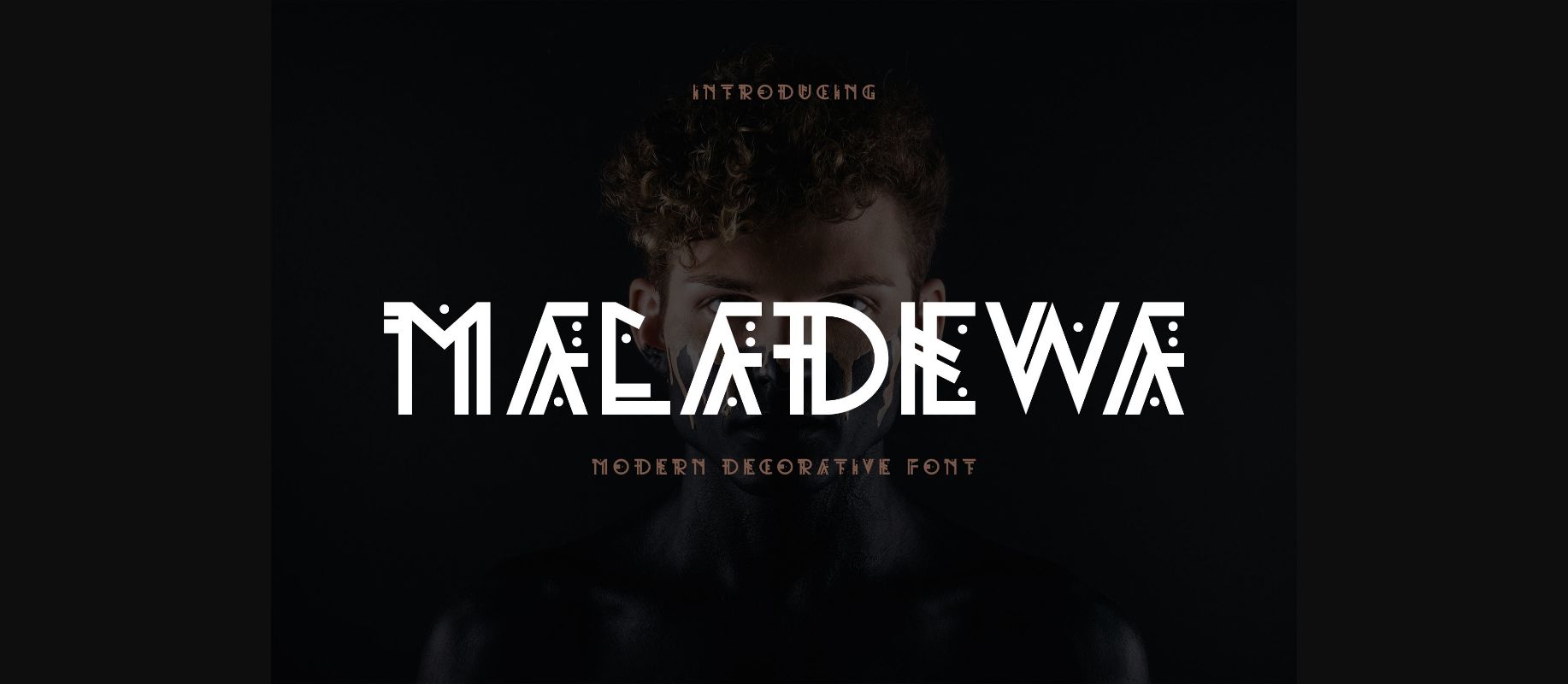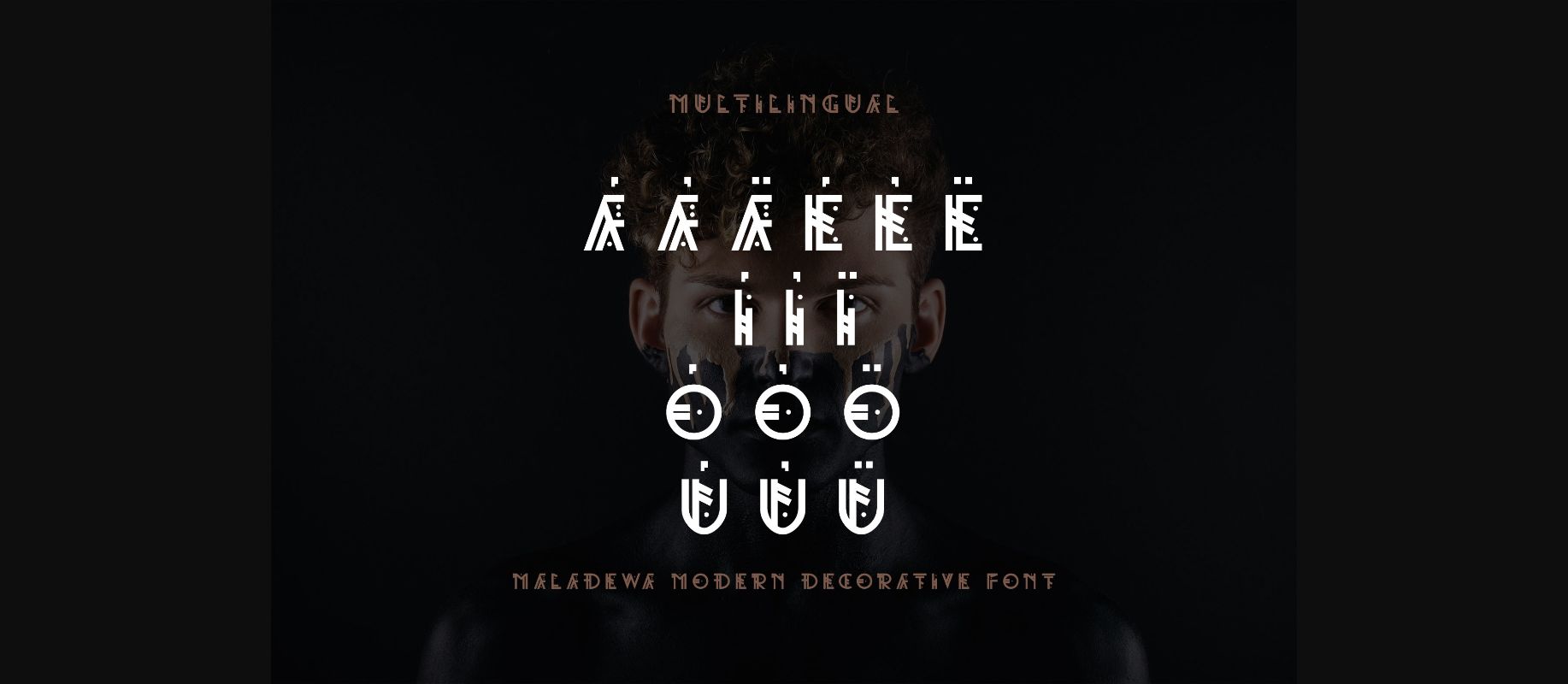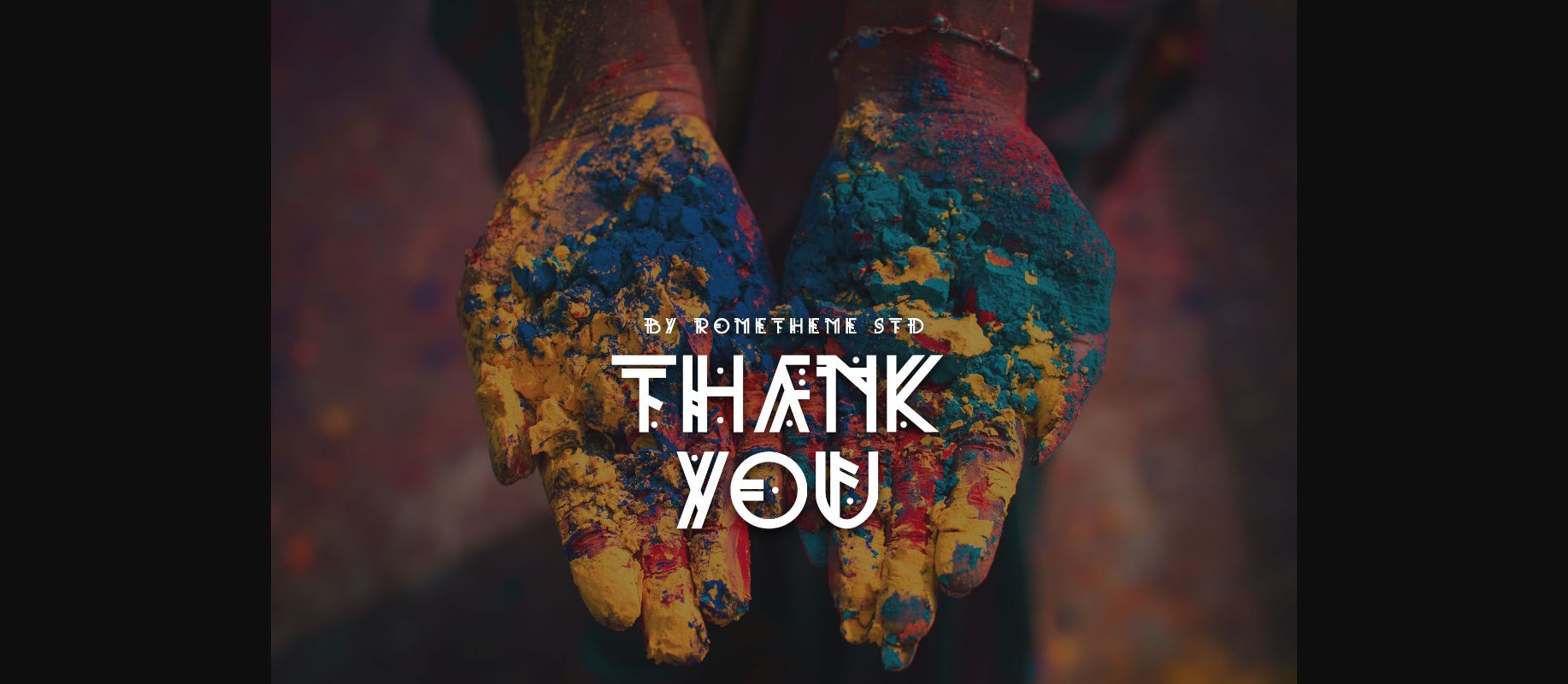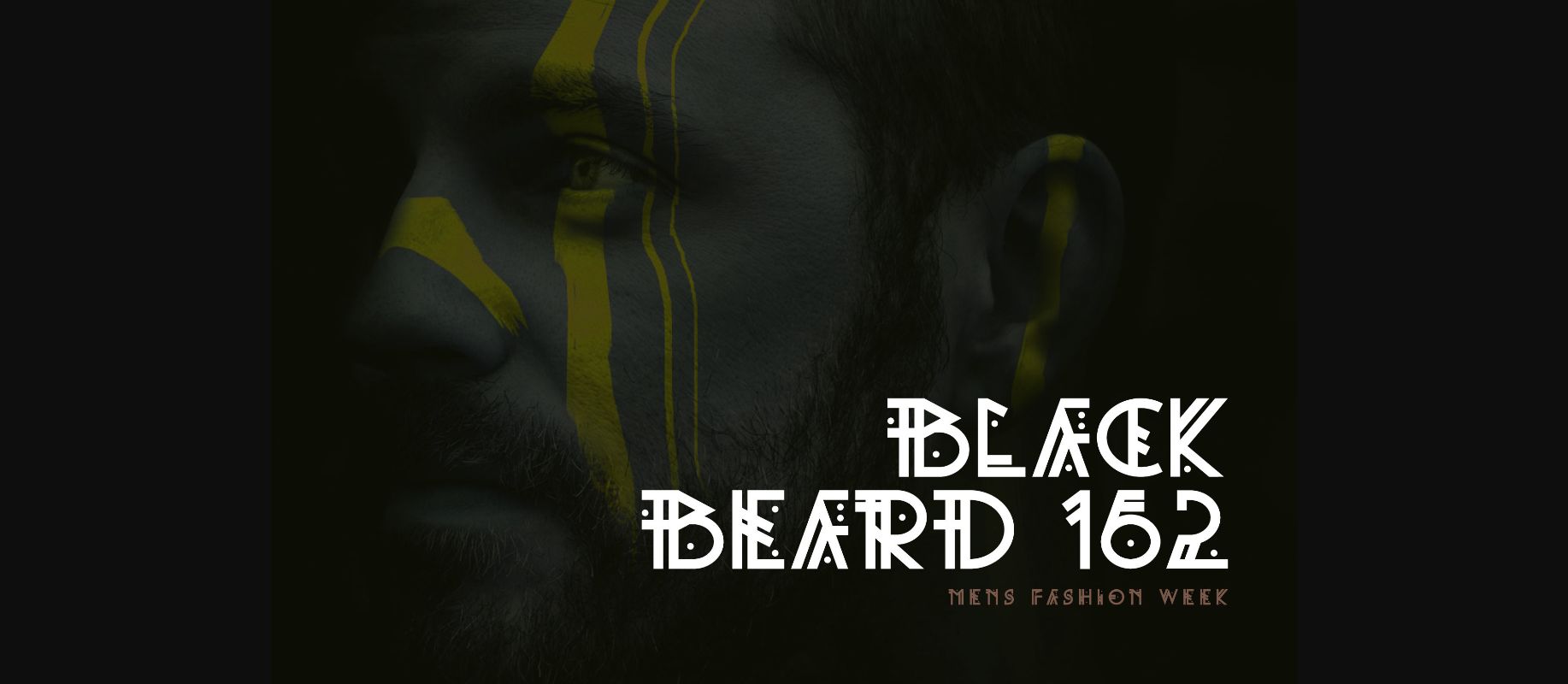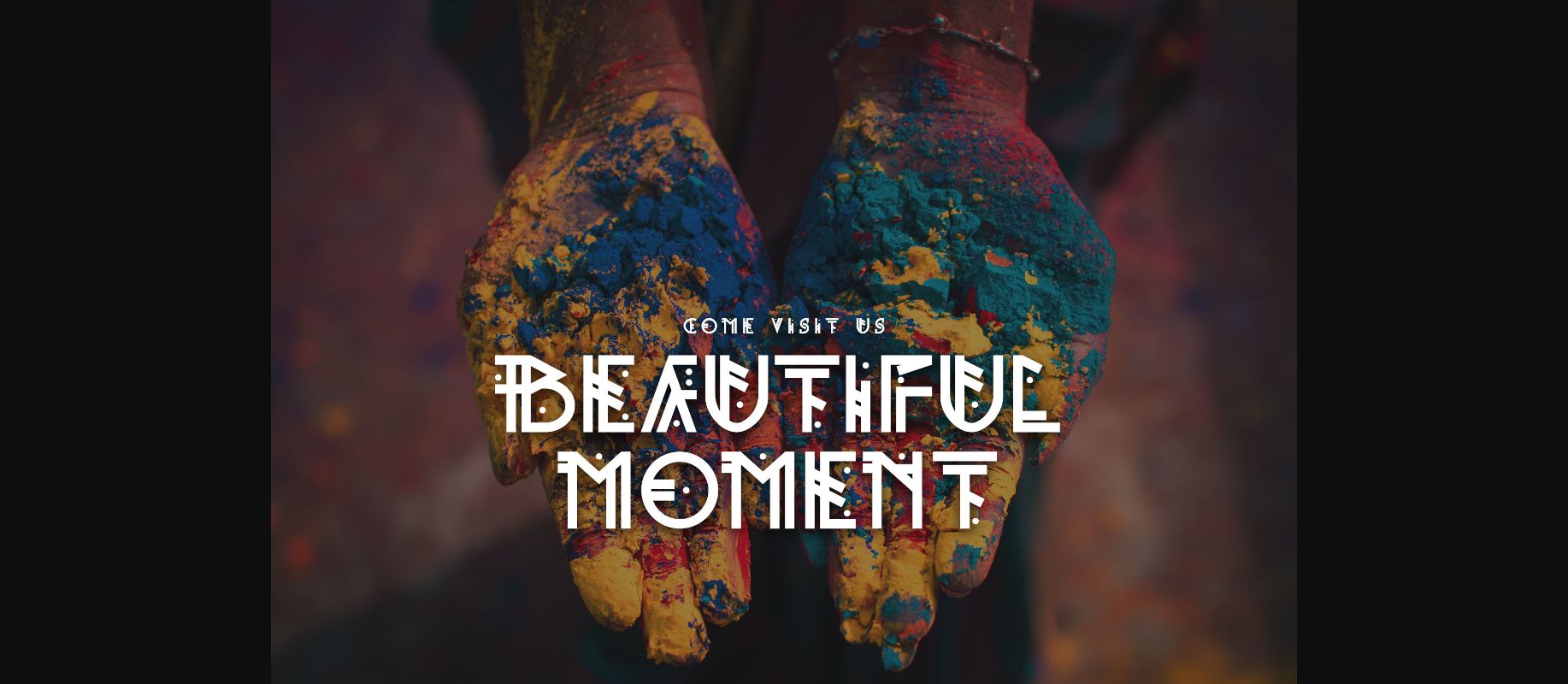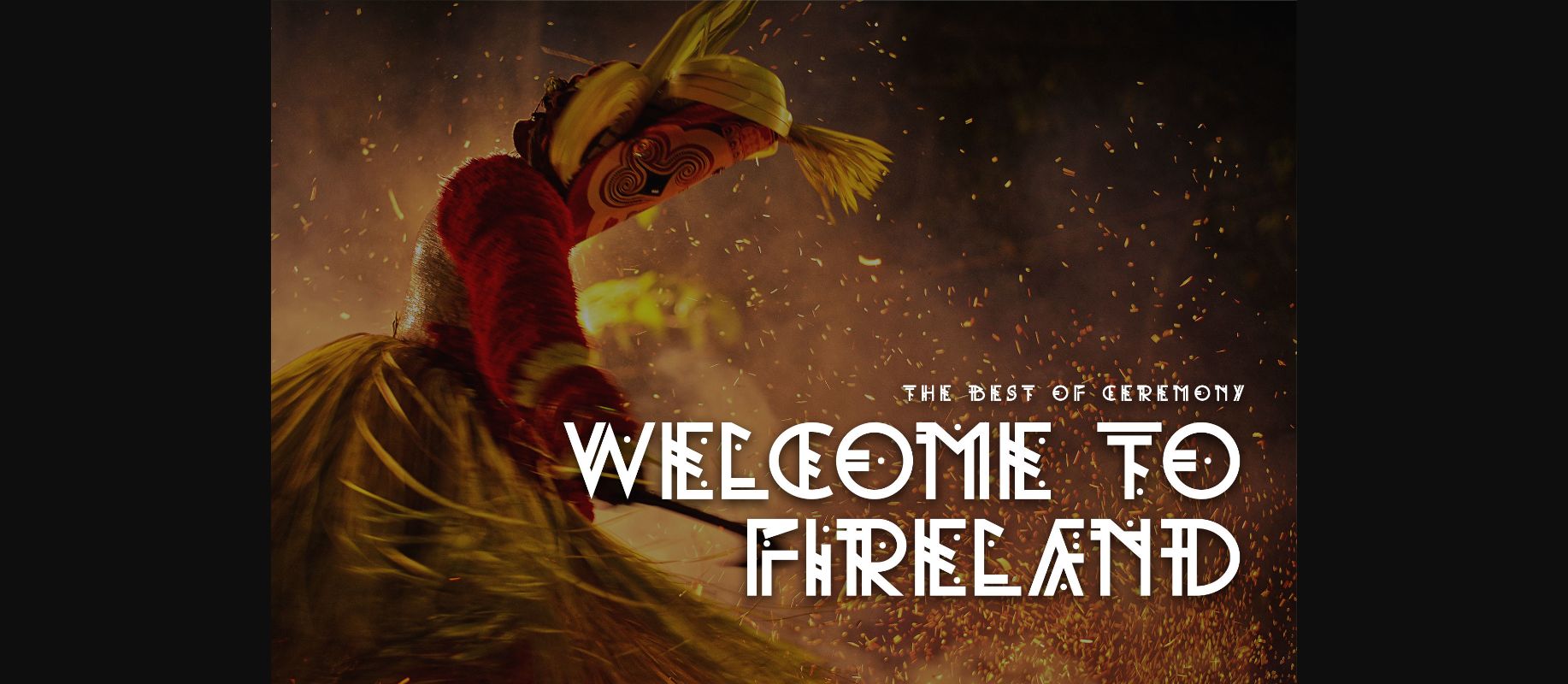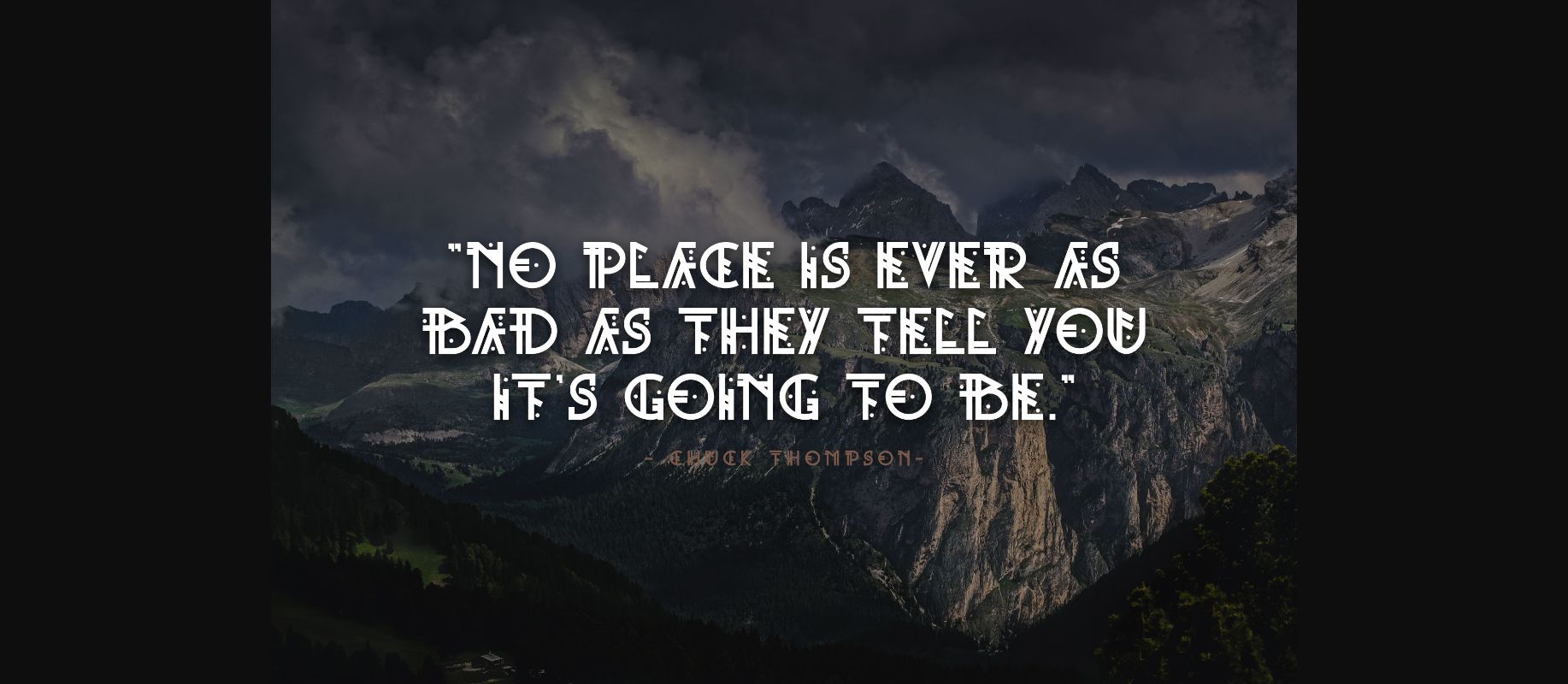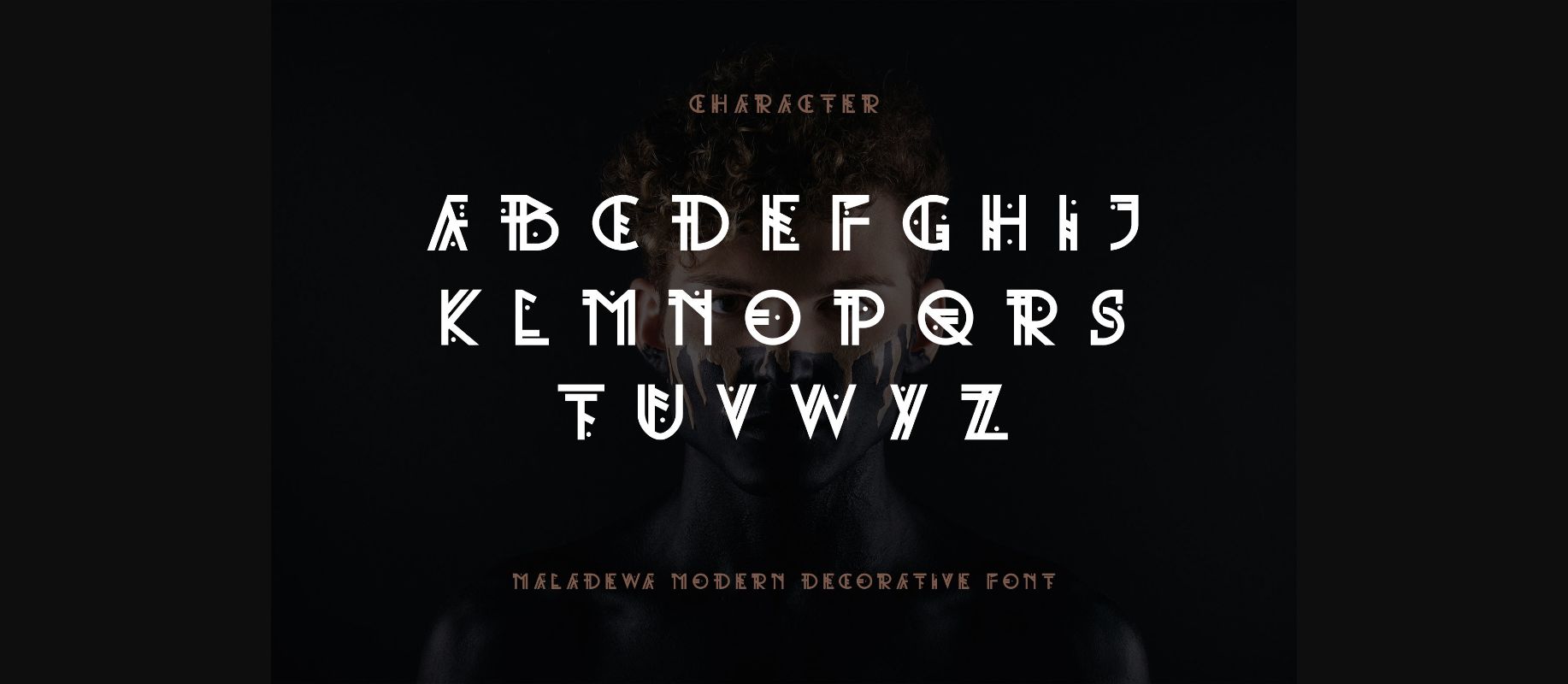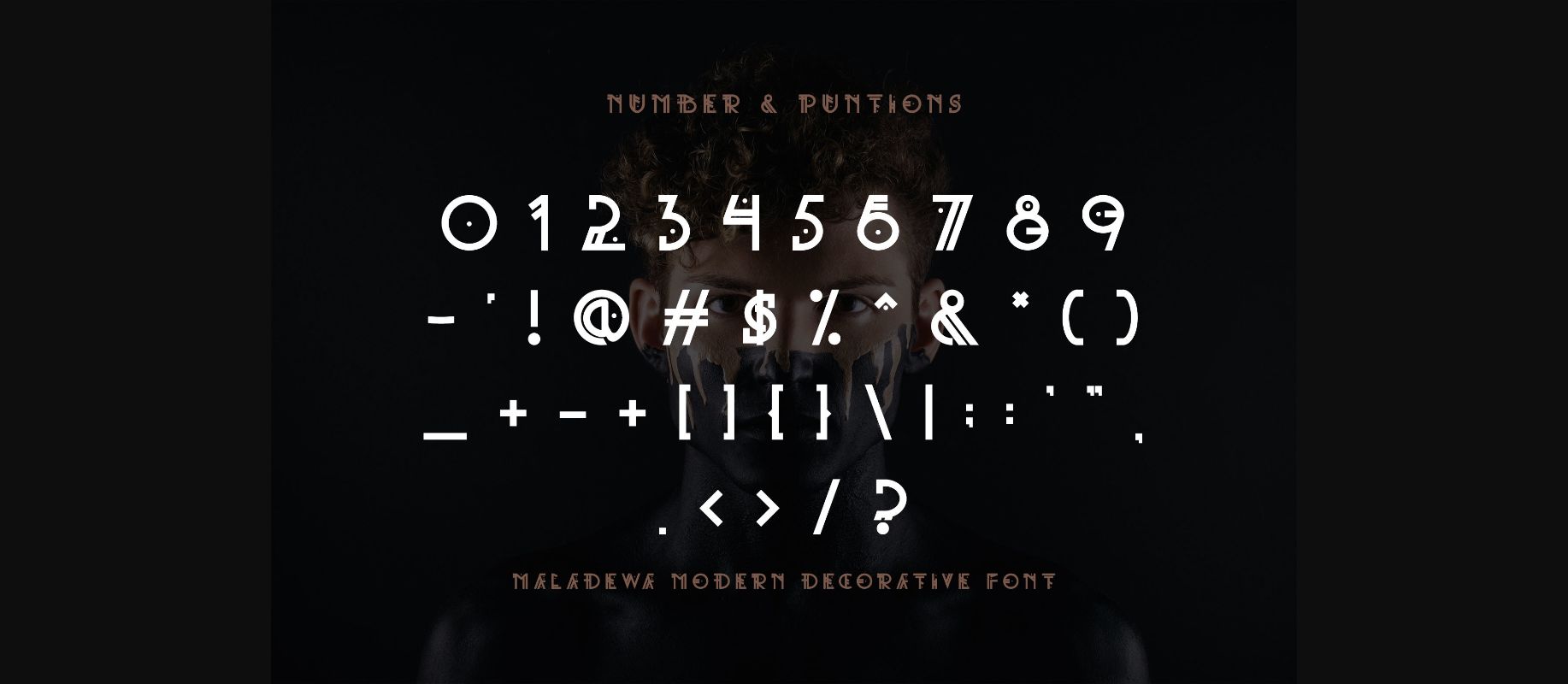
Maladewa – Display Decorative Font
About Maladewa – Display Decorative Font
Maladewa is a modern decorative font. Its elegant, classy, and modern look makes it a fantastic choice for fashion, apparel projects, signature, album covers logos, branding, magazines, social media posts, advertisement, and many more. Use this decorative font to add that special cool touch to any design idea you can think of!